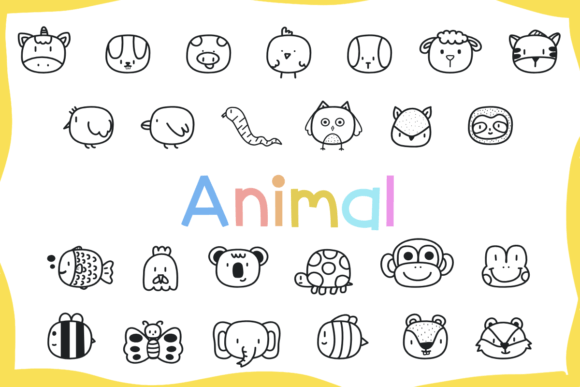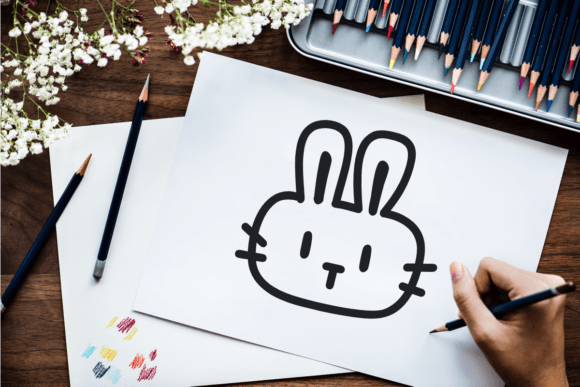
Unleash Your Creativity with the Adorable Animal Font
Are you a designer, crafter, or creative enthusiast looking for a unique and playful font to elevate your projects? Look no further than the Animal Font, a delightful hand-drawn dingbats font that’s sure to capture hearts. This charming font is perfect for a wide range of applications, from planners and digital designs to greeting cards and worksheets. In this article, we’ll explore the features and benefits of the Animal Font and show you how to make the most of this versatile and adorable font.
What is the Animal Font?
The Animal Font is a carefully crafted, hand-drawn dingbats font featuring a delightful collection of cute and quirky animal designs. Each character in the font is meticulously drawn to bring a touch of playfulness and whimsy to your designs. The font is perfect for adding a personal touch to your creative projects, making them stand out from the crowd.
Key Features of the Animal Font
- Cute and Playful Designs: The Animal Font boasts an extensive collection of adorable animal designs, from cuddly mammals to colorful birds and insects.
- Hand-Drawn with Love: Each character in the font is carefully hand-drawn with attention to detail, ensuring a unique and personal touch.
- Versatile and Flexible: The Animal Font is suitable for a wide range of applications, including planners, digital designs, presentations, worksheets, greeting cards, and more.
The Animal Font is an ideal choice for designers and crafters looking to add a touch of personality to their projects. Whether you’re creating:
- Planners and Organizers: Add a cute and playful touch to your planners and organizers with the Animal Font.
- Digital Designs: Use the font to create eye-catching digital designs, such as social media graphics, blog posts, and email newsletters.
- Presentations and Worksheets: Make your presentations and worksheets more engaging with the Animal Font.
- Greeting Cards and Invitations: Create adorable greeting cards and invitations with the Animal Font.
Tips and Tricks for Using the Animal Font
To get the most out of the Animal Font, here are some tips and tricks:
- Mix and Match: Combine the Animal Font with other fonts to create a unique and visually appealing design.
- Use Icons and Graphics: Use the Animal Font icons and graphics to create custom illustrations and graphics.
The Animal Font is a delightful and versatile font that’s perfect for designers, crafters, and creative enthusiasts. With its cute and playful designs, hand-drawn with love, this font is sure to bring a touch of personality to your projects. Whether you’re creating planners, digital designs, presentations, worksheets, or greeting cards, the Animal Font is an excellent choice. So why wait? Unleash your creativity with the Animal Font and make your designs outstanding!